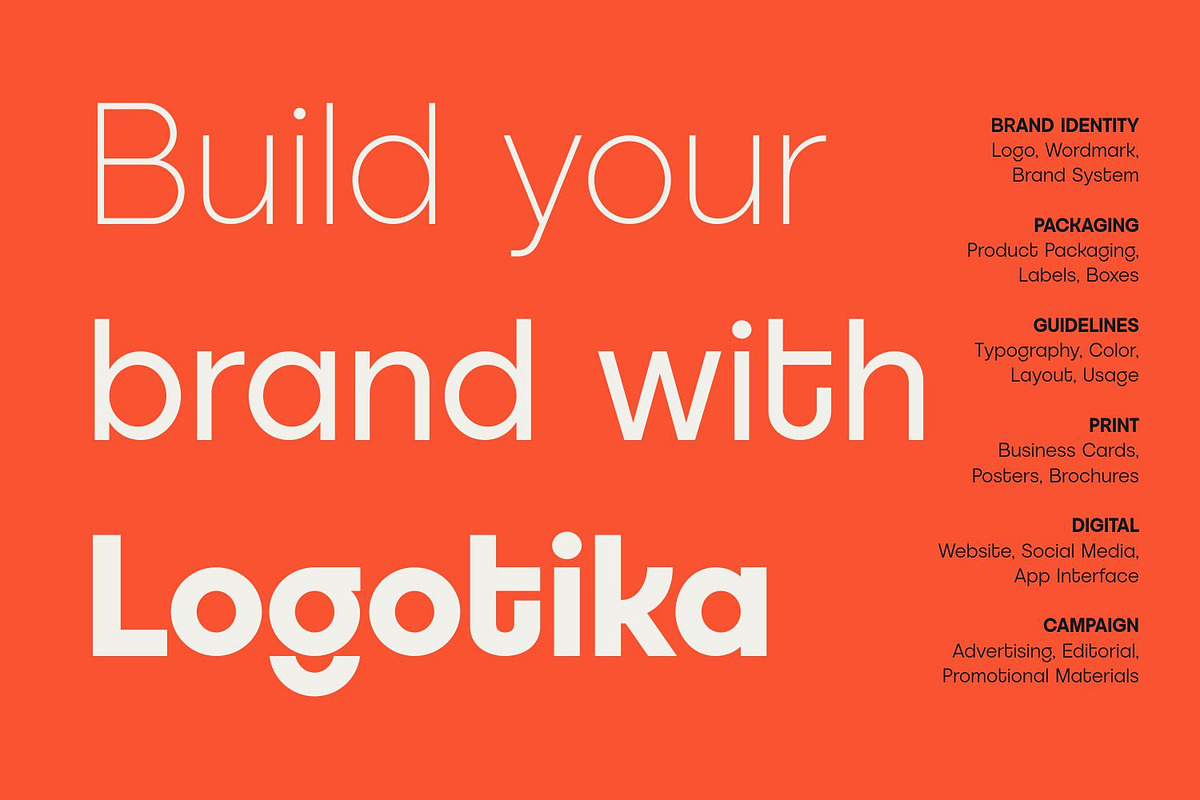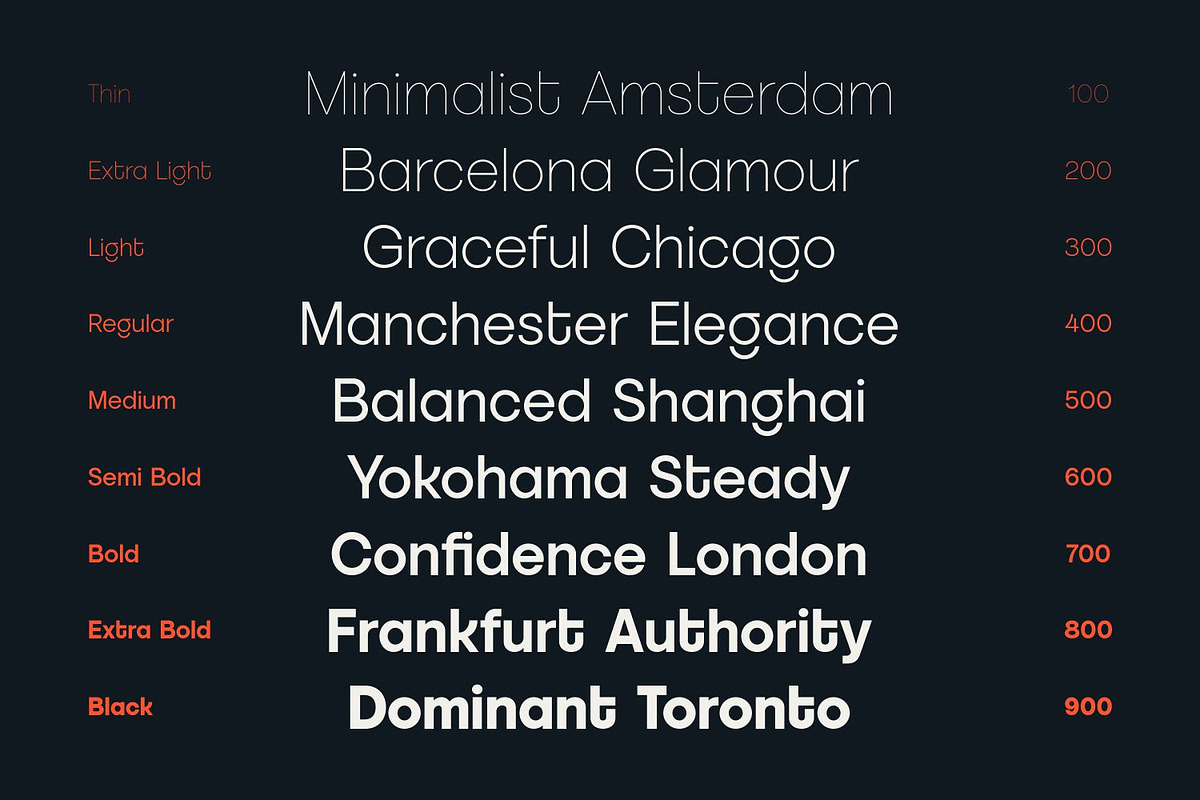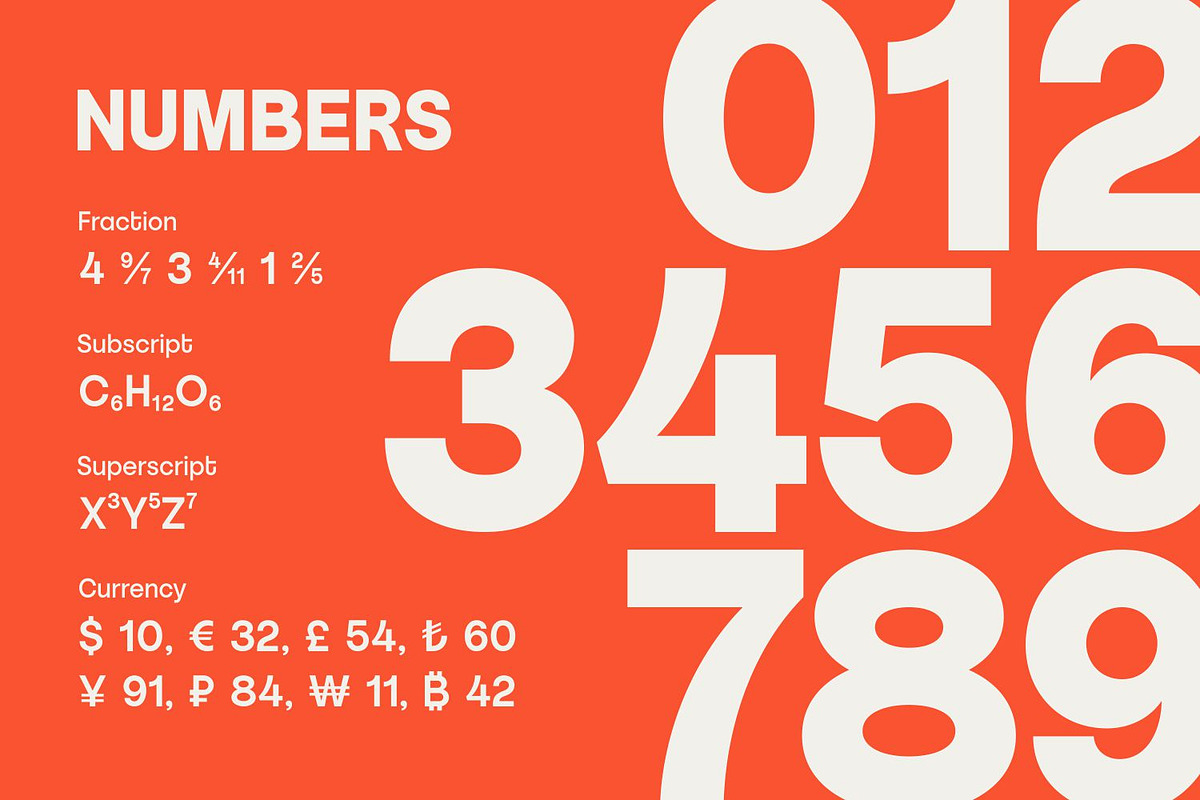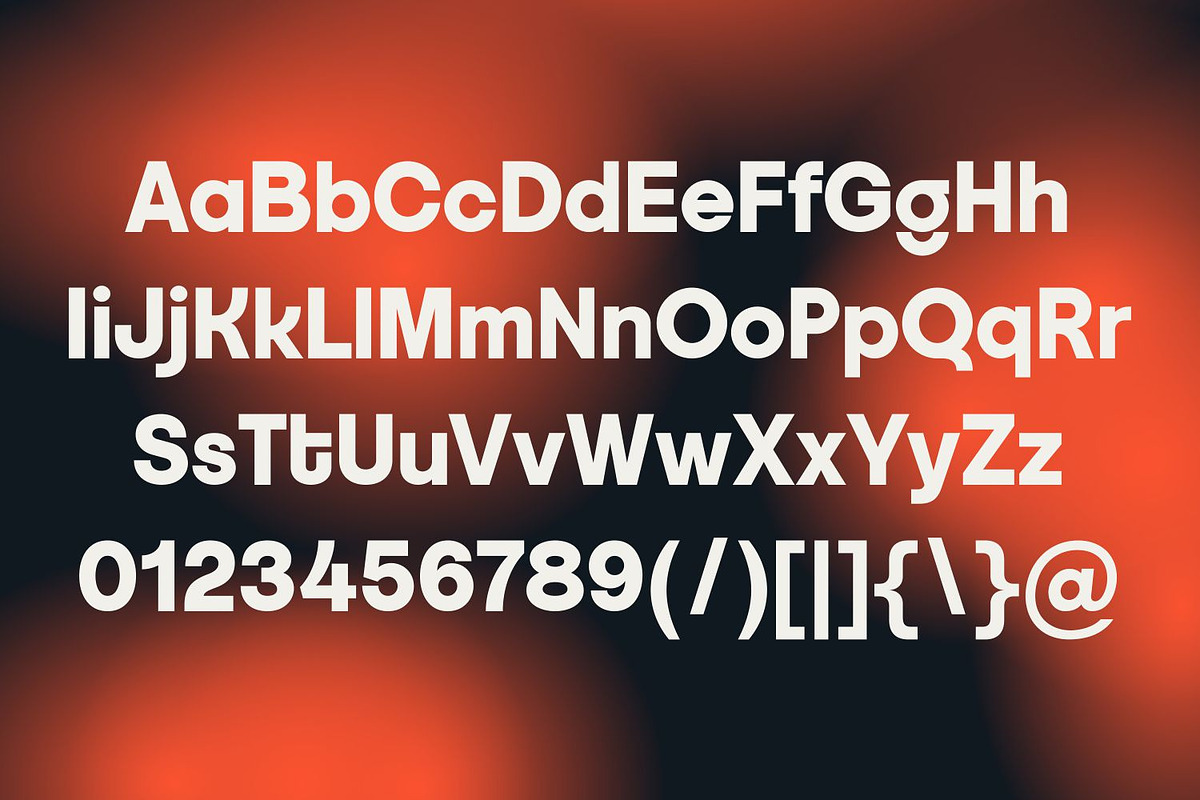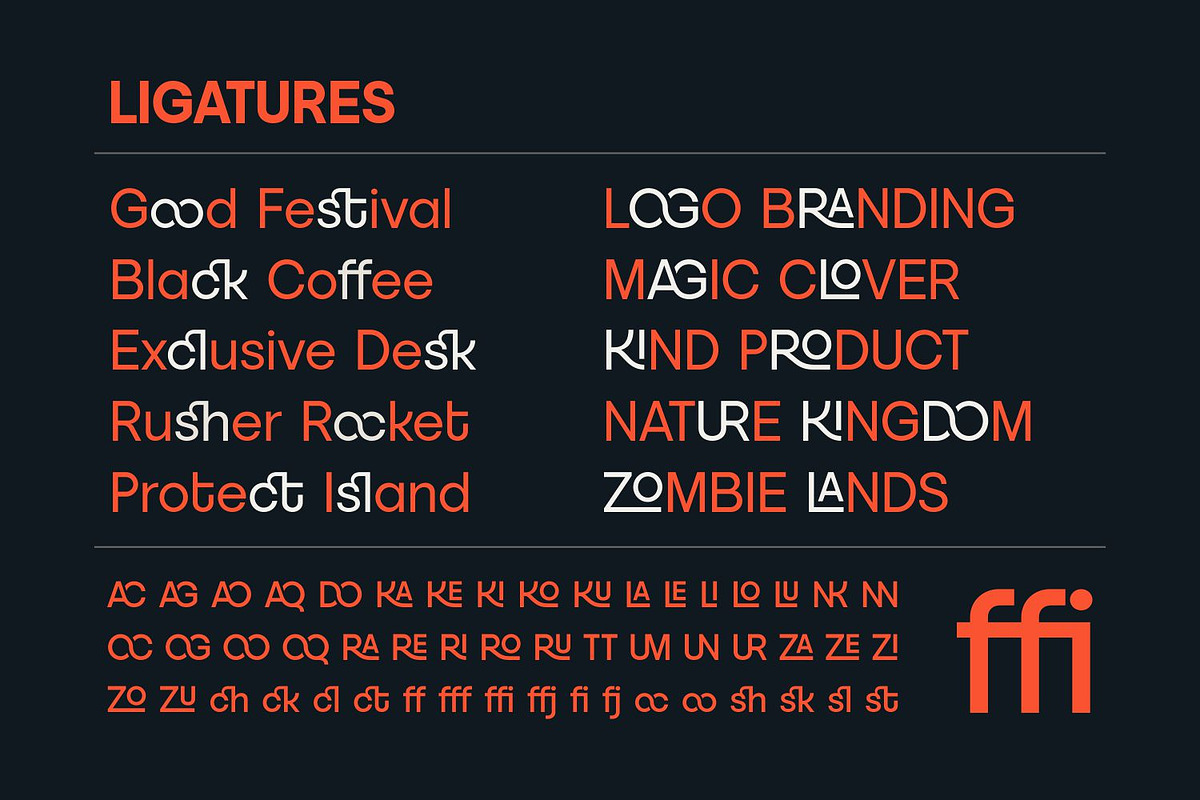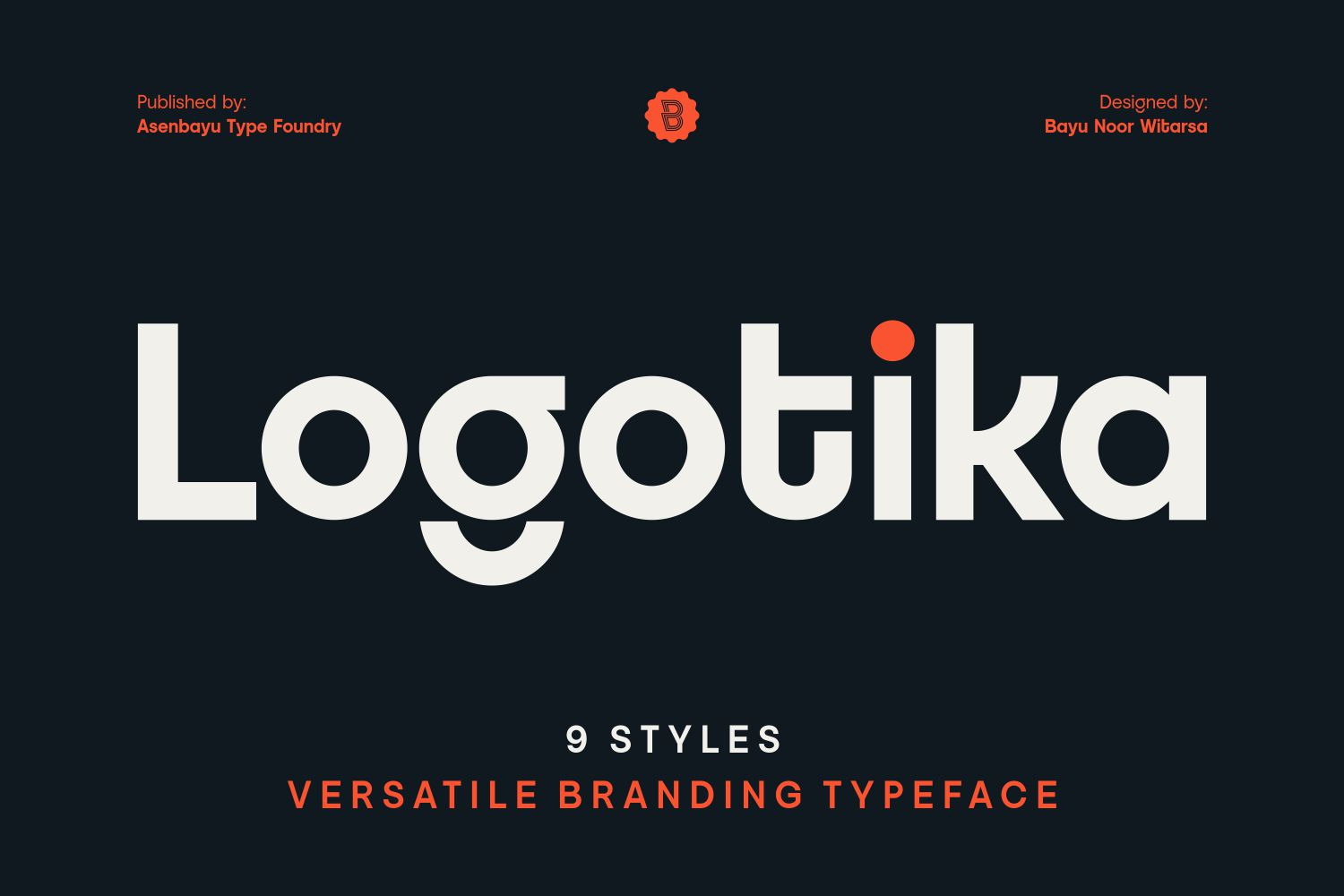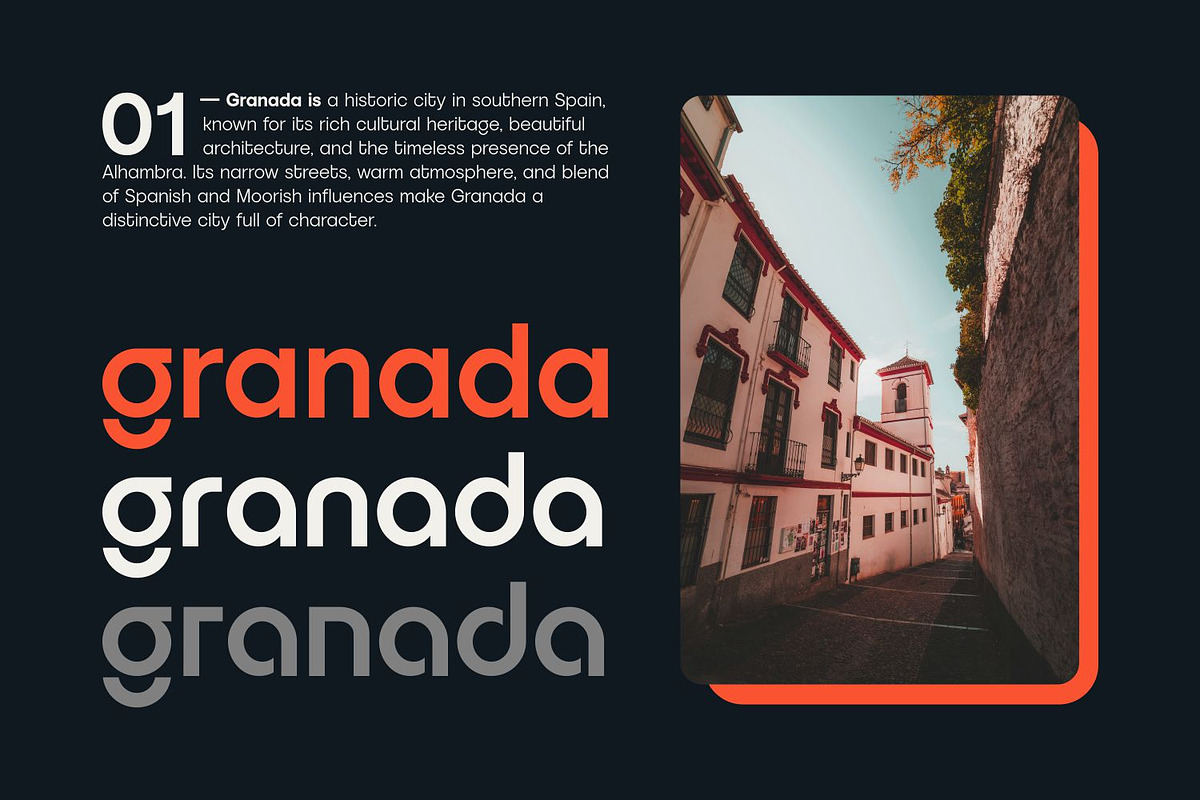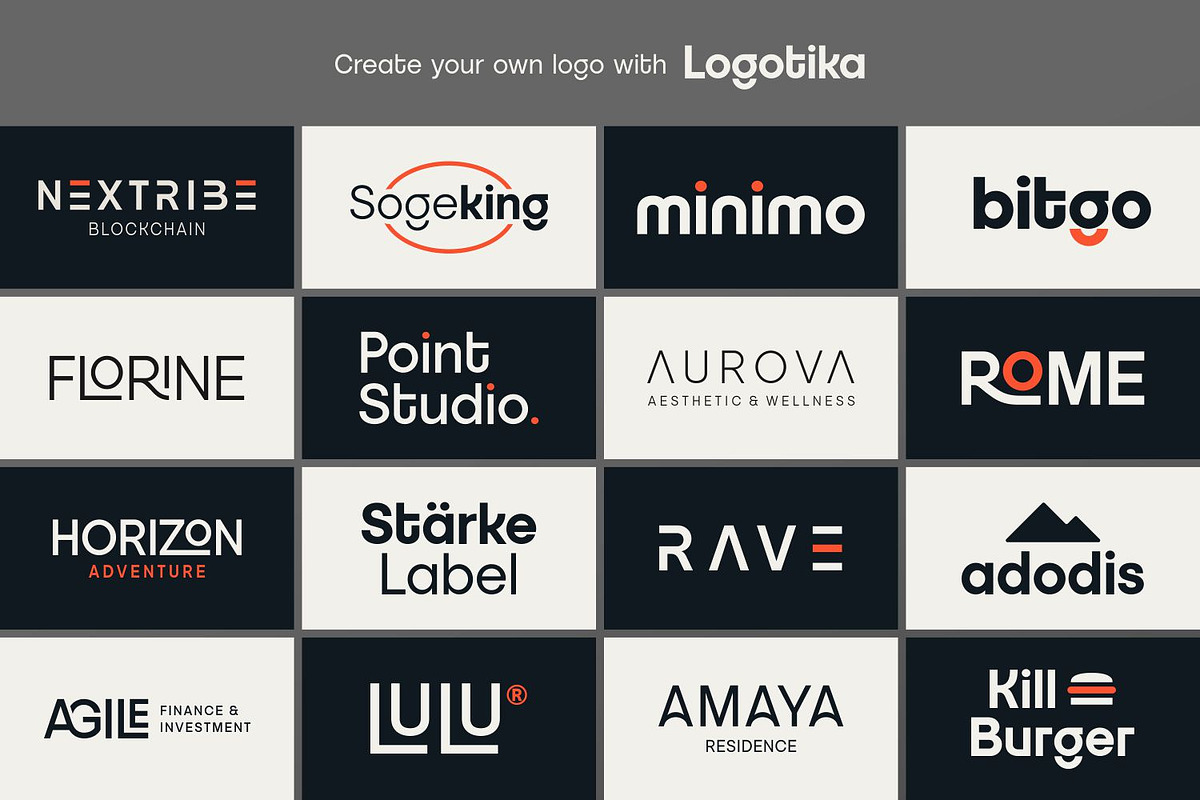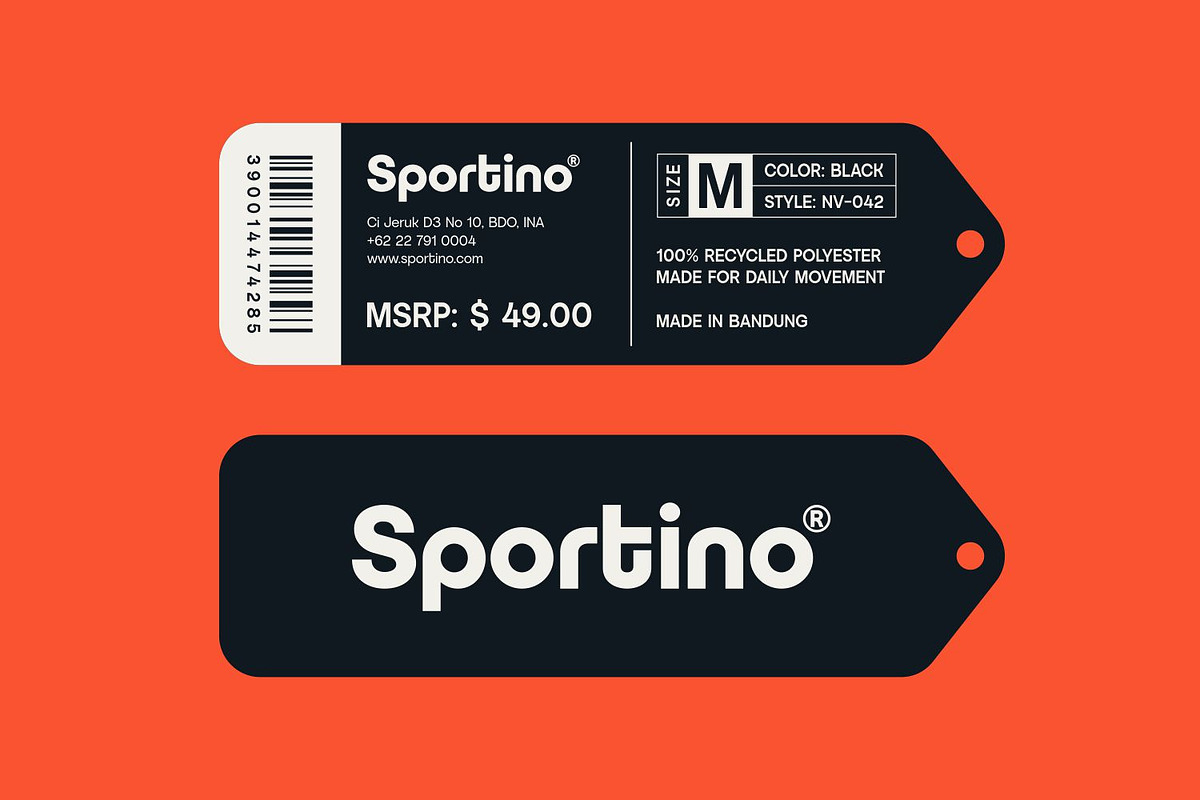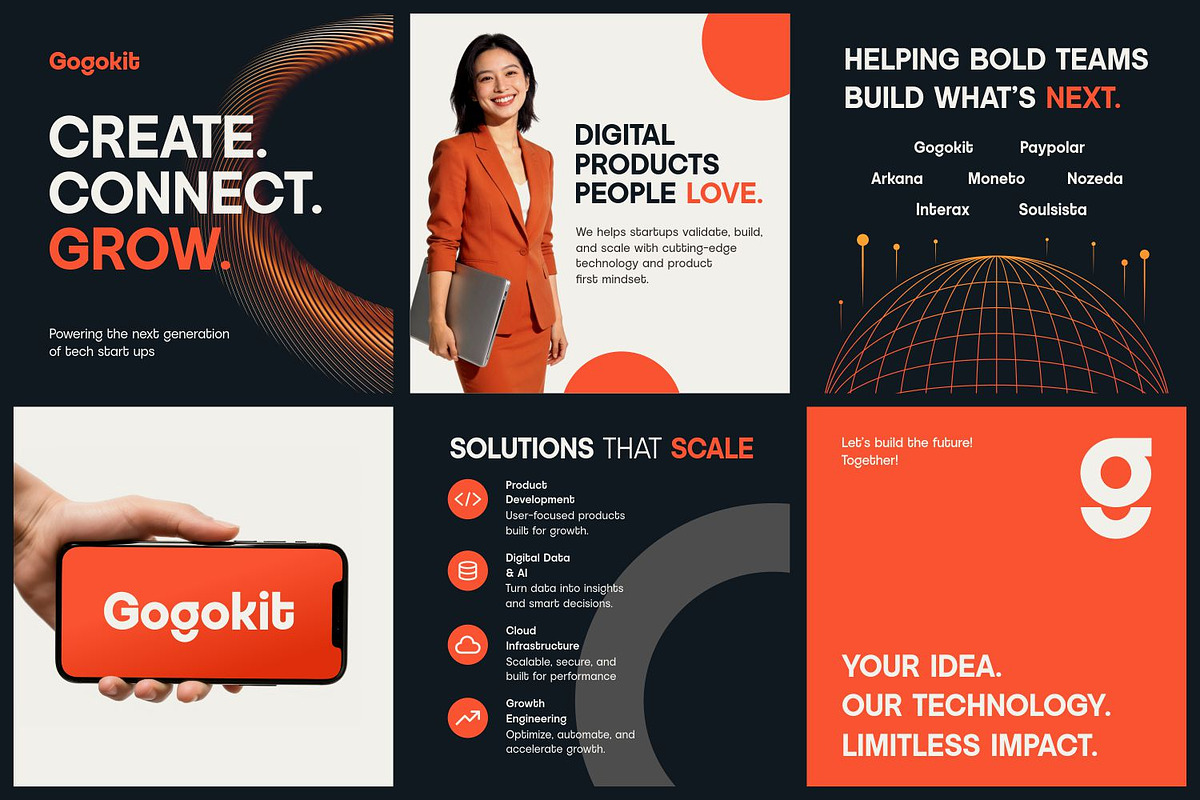
Logotika Font Family
Logotika is a versatile sans serif typeface family designed to bring clarity, personality, and consistency to modern visual identities. With 9 weights ranging from Thin to Black, Logotika provides a flexible typographic system that adapts effortlessly from refined, lightweight applications to bold and impactful headlines.
Its clean construction and distinctive character make it especially well suited for branding, logo design, editorial layouts, packaging, digital interfaces, and contemporary advertising. The broad weight range allows designers to establish clear visual hierarchy while maintaining a cohesive brand language across different applications.
Whether used for a sophisticated wordmark, a bold campaign headline, or everyday brand communication, Logotika is built to perform across both display and functional typography.
9 Styles (Thin to Black),
Latin Extended,
Multiple Language Supported,
Stylistic Alternates & Stylistic Set 01-10,
Ligatures & Discretionary Ligatures,
Fractions, Numerators & Denominators,
Superscript & Subscript,
Ordinals,
Symbol & Punctuation,
Refined Kerning & Balanced Spacing,
Contemporary Sans Serif,
Excellent Readability,
Professional & Versatile Design.
Uses Cases:
Brand Identity & Logo Design
Corporate & Startup Branding
Editorial & Magazine Design
Advertising & Campaigns
Social Media & Digital Content
Websites & UI/UX Design
Posters & Headlines
Signage & Environmental Graphics
Fashion & Lifestyle Branding
Technology & Digital Products
Business Cards & Stationery
Product Labels & Tags
Presentation & Brand Guidelines